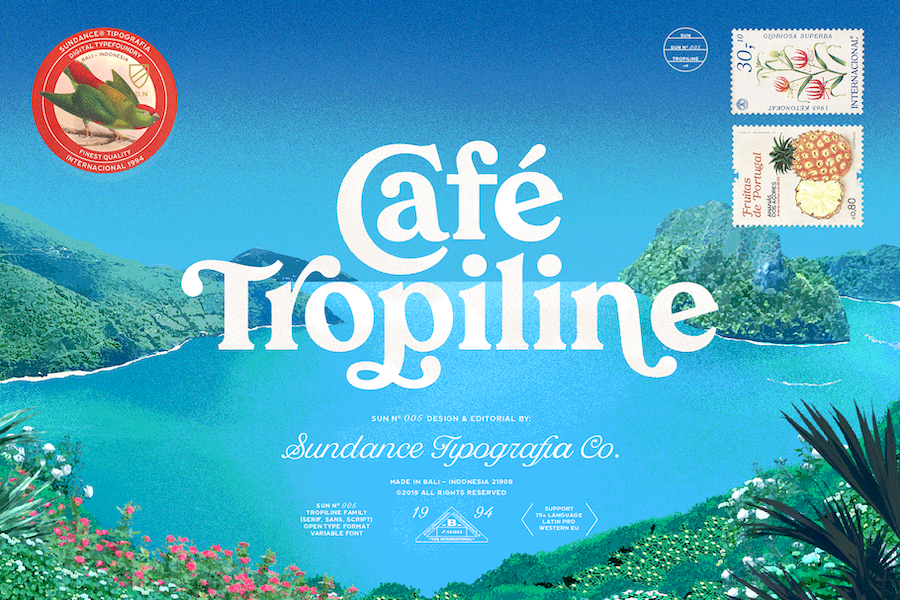
Tropiline Font Family envolved from Old Style font, which are playful, Bold, & Elegant, created by Cahya Sofyan and published by Studio Sun, originaly created early 2016 and published in 2019. The letterform of the tropiline are inspired by eighteenth-century typeface, Caslon, Bookman, Grotesque, Kuenstler Script. with a more dynamic structure, a wide and square size of the lower case, a little contrast in width, and almost being a slab serif. Tropiline has been used for Display Faces, perfect for Packaging, Print Ad, Title, Caption, Logotype, etc.